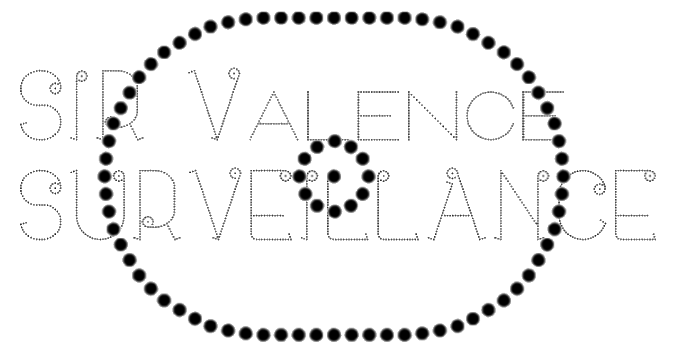
• This one-eyed character set places one circle-serif to start or end strokes somewhere on each glyph (except "O") in the set...hence it's name. Angled serifs acting as hands or feeet (or tails?) are used elsewhere. This is derived from the base font (lc) I used for previous efforts. I made it tall and then thought Cyclops (for SerifComp) to use now since I never released it (full disclosure). Anyway, a different view of what serif can be :)
“Funny faces, we get!” - daYo
Great work on this font.  I love the roundness of the small cap letters.  I've got one question... how do you make those curves?
@maneman, this is possibly the magic trick called nudging. And 2x2 filters.